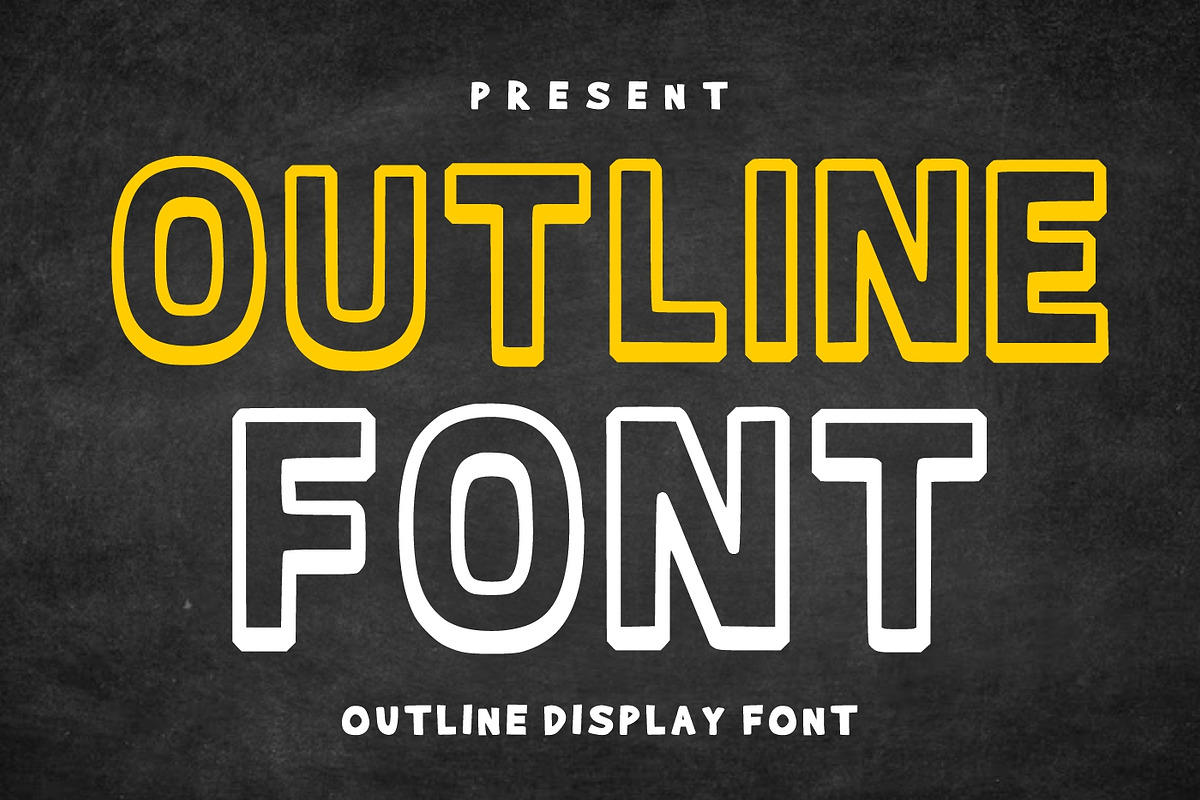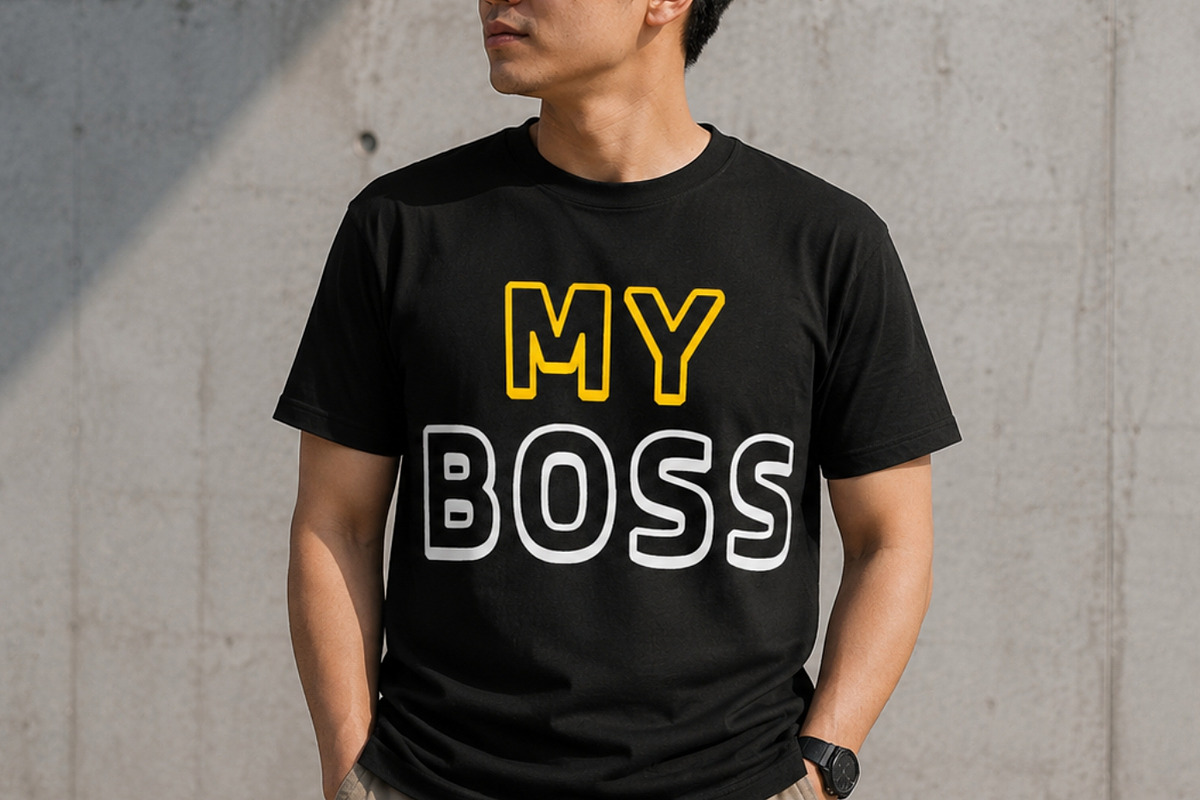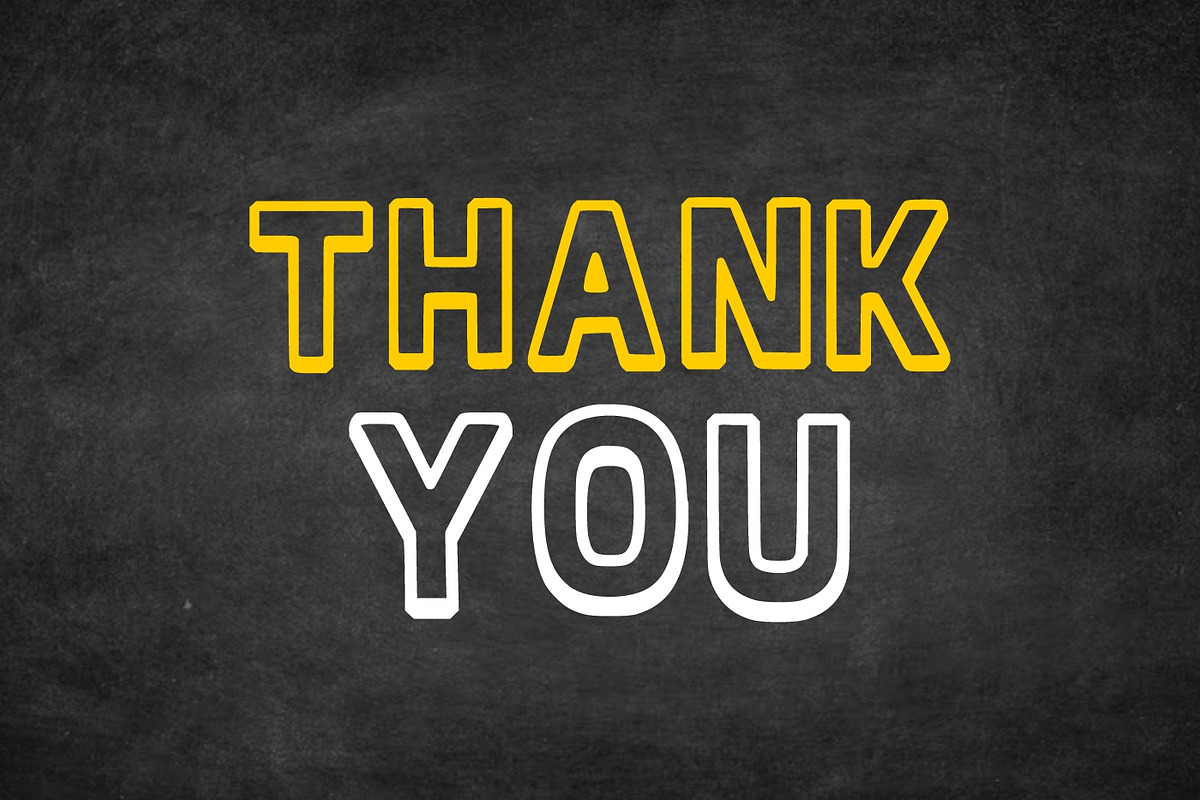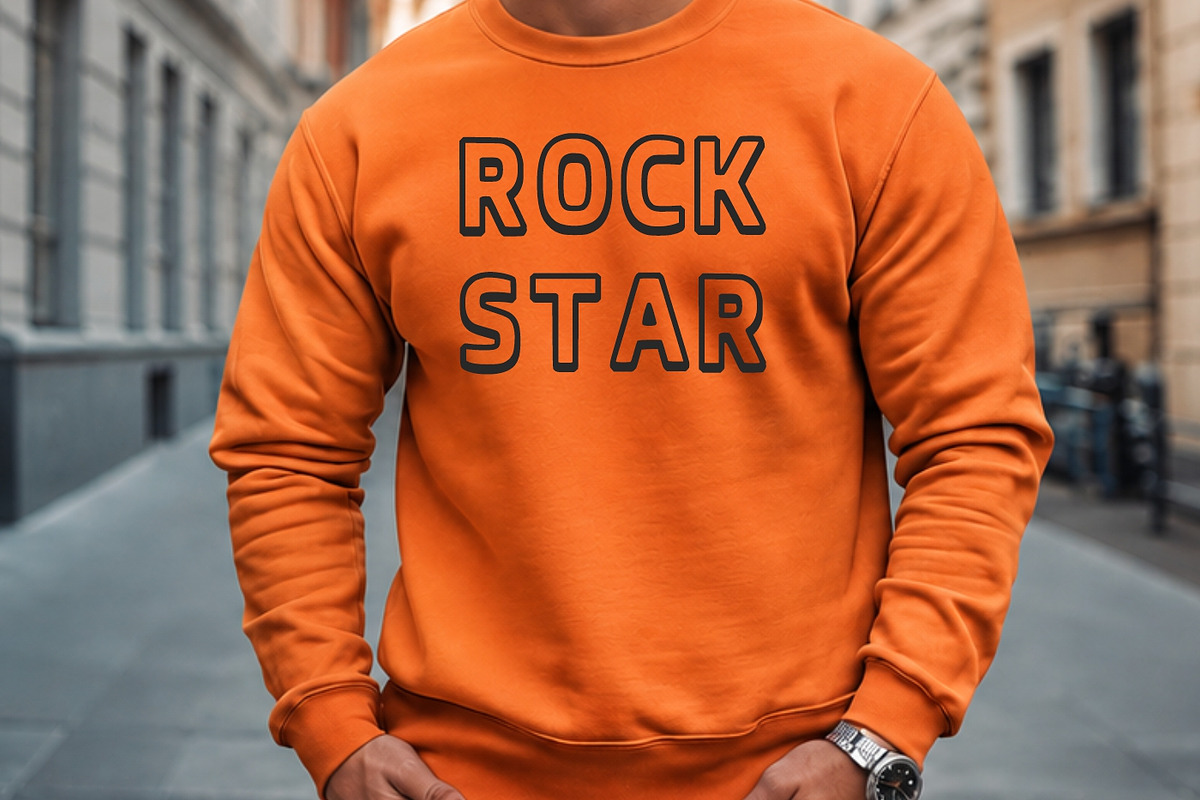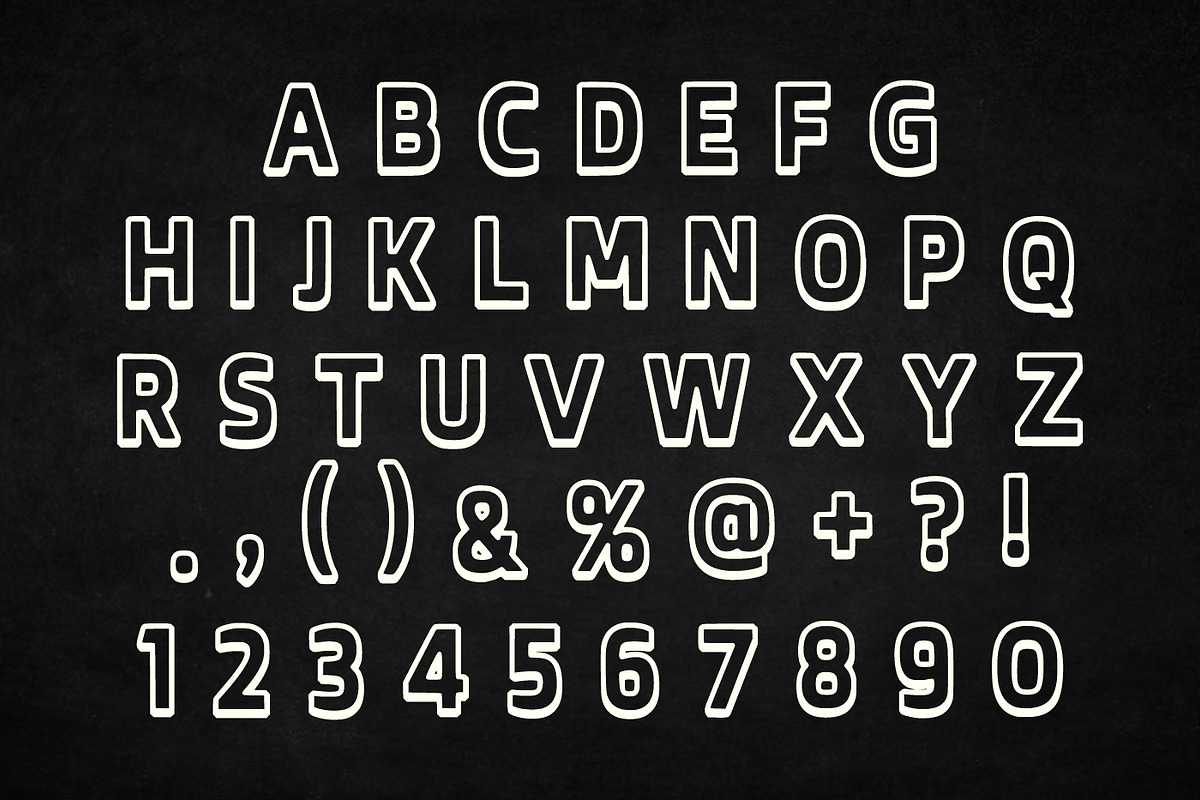
Outline Font
Outline Font Display, a bold and modern display typeface designed to make your headlines stand out with confidence and style. Featuring strong outline letterforms, clean geometric shapes, and a sporty aesthetic, this font is perfect for projects that require maximum visibility and impact.
The unique outlined structure gives this font a contemporary and energetic appearance, making it ideal for sports branding, gaming graphics, posters, logos, apparel designs, event promotions, social media content, packaging, and eye-catching merchandise. Its bold construction ensures excellent readability while adding a professional and dynamic personality to your designs.
Whether you’re creating varsity-inspired graphics, modern athletic branding, esports content, team merchandise, or bold marketing materials, Outline Font Display delivers a fresh and powerful visual presence. The font works beautifully for both digital and print applications, helping designers create memorable projects that instantly grab attention.
Perfect for creative professionals, crafters, entrepreneurs, and branding specialists looking for a versatile display font with a sporty modern edge.